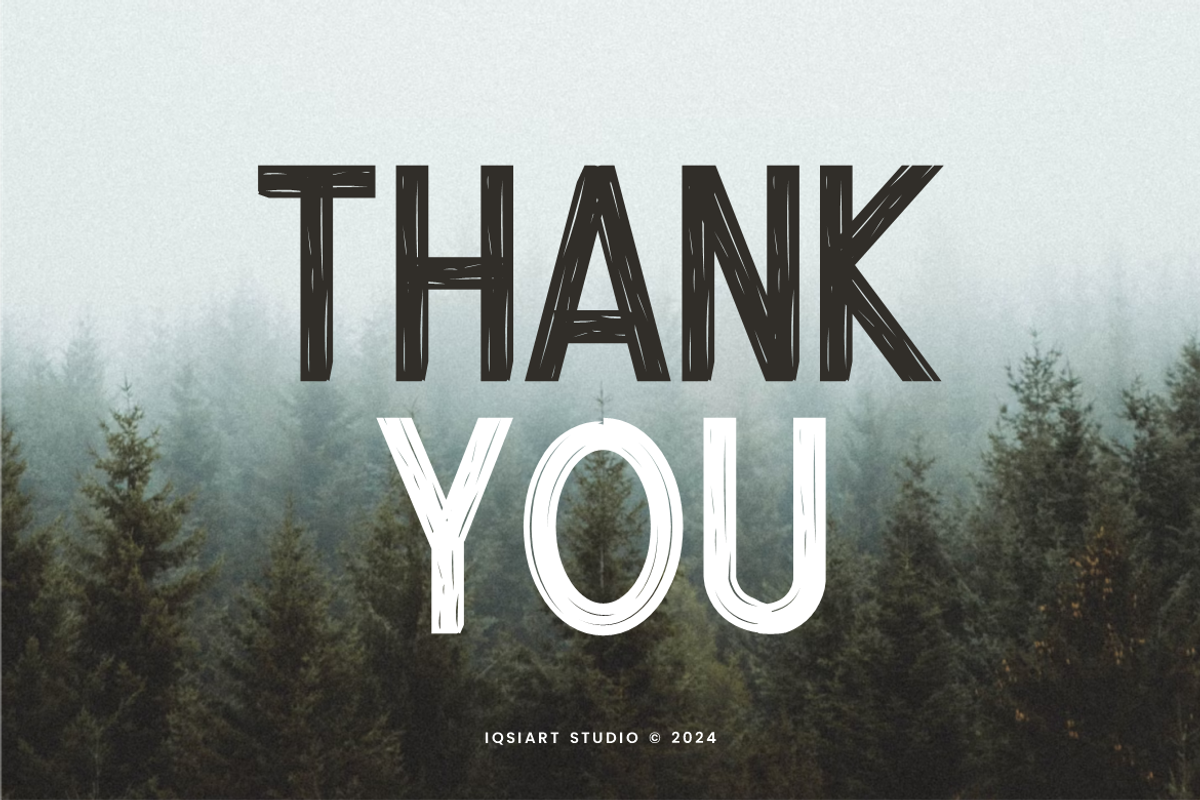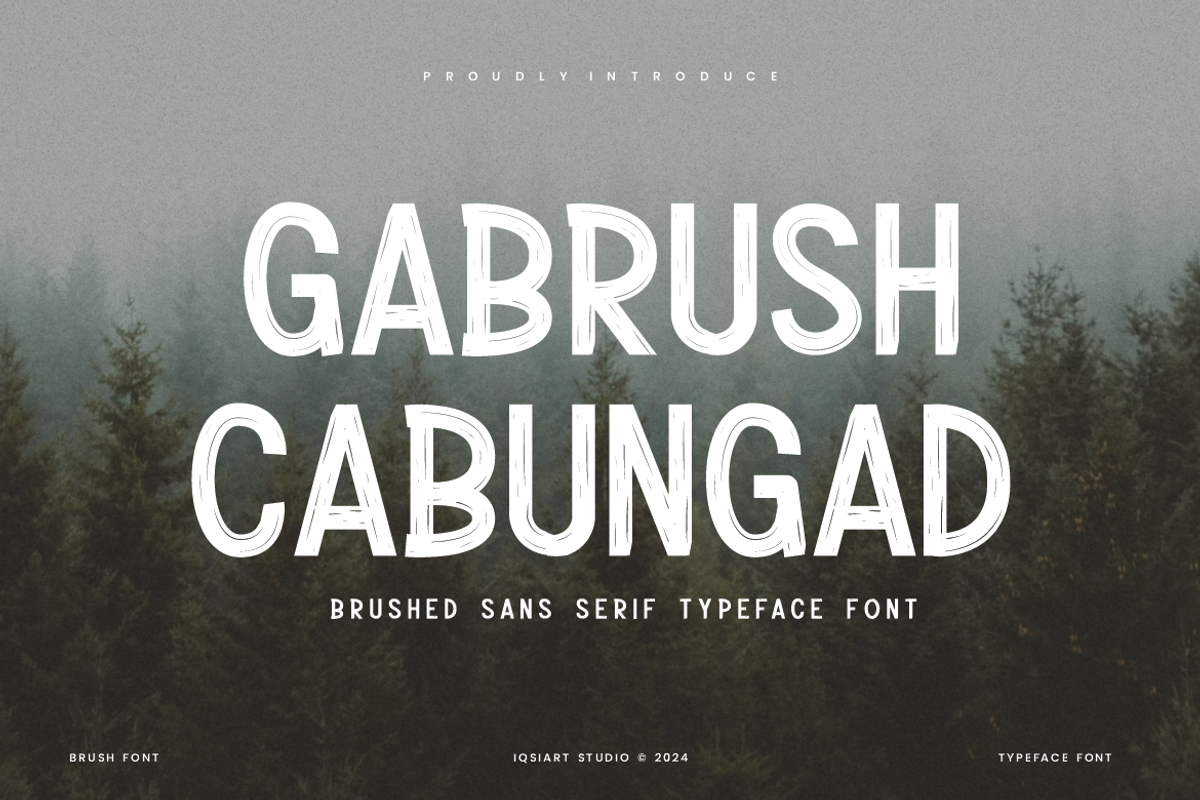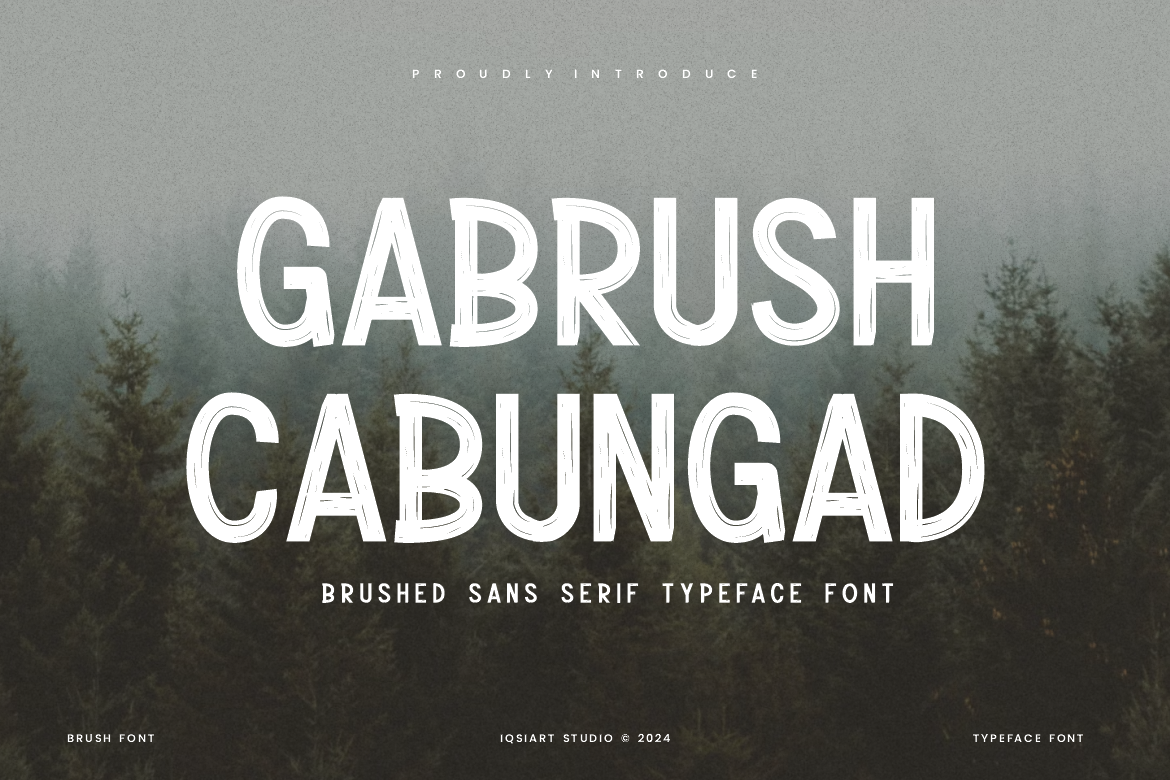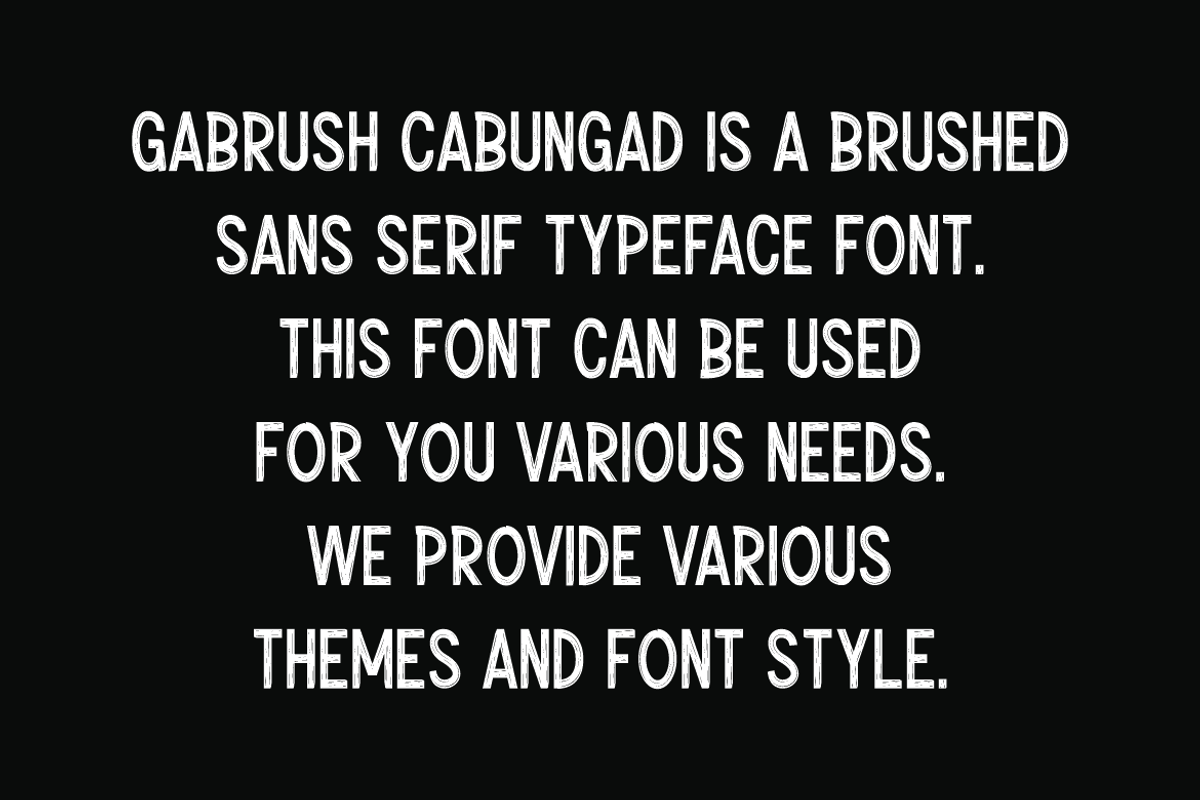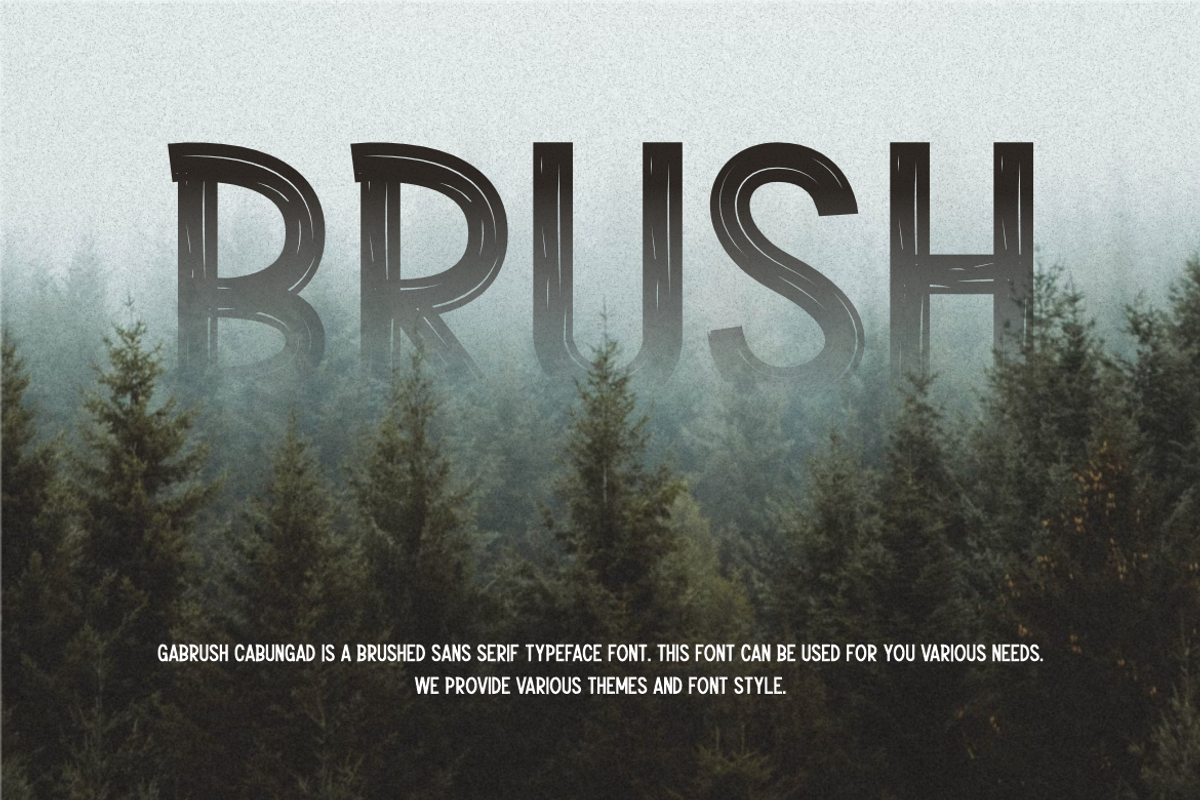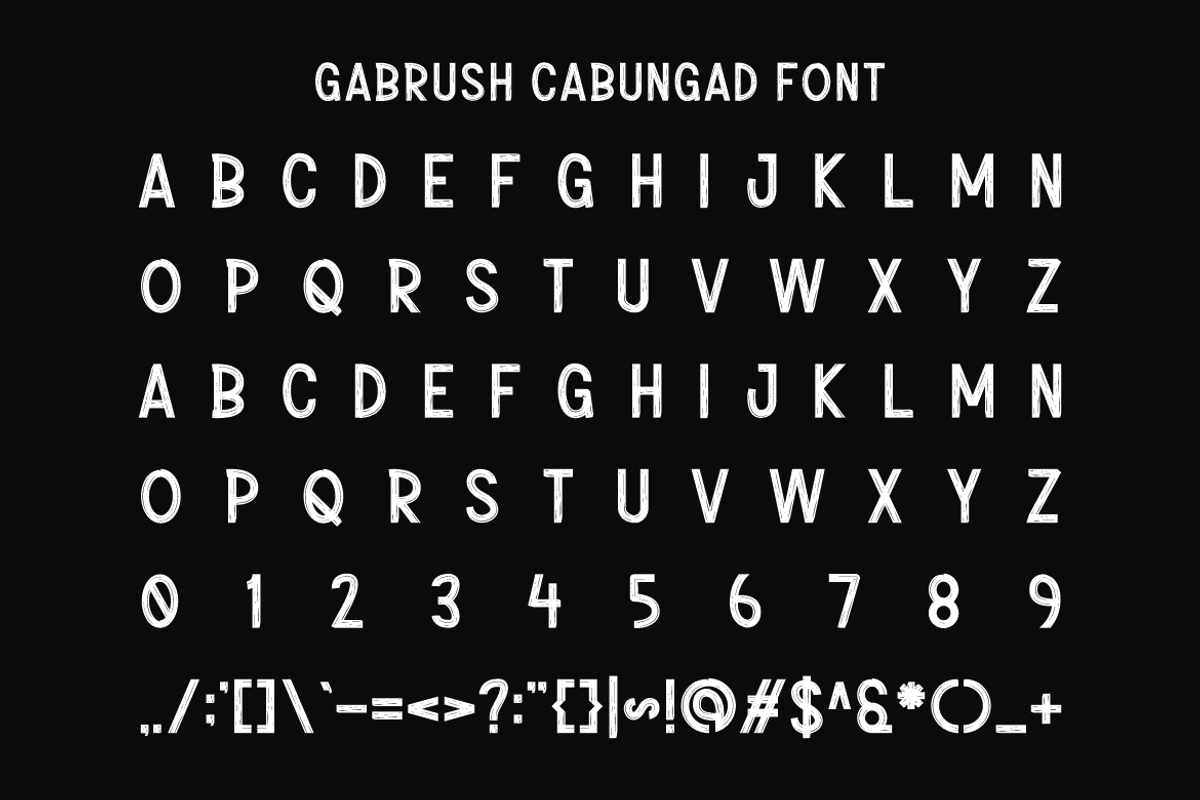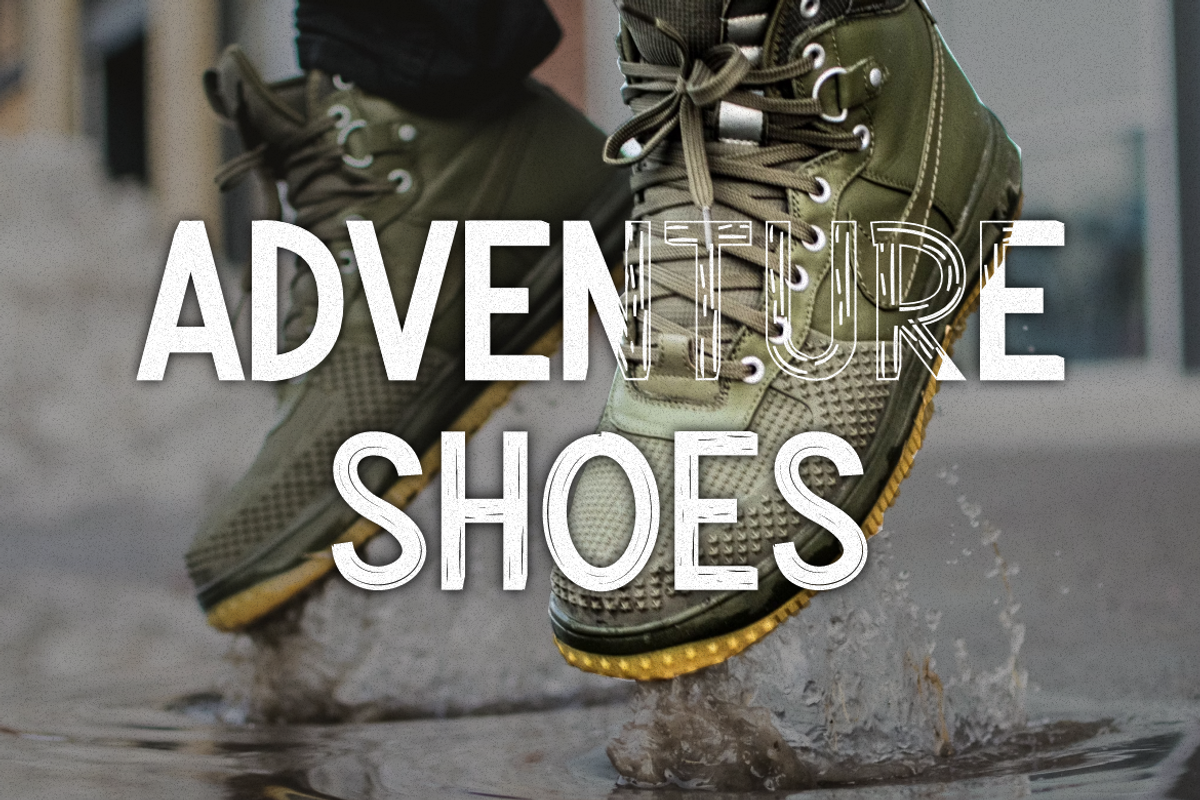
Gabrush Cabungad - Brush Font
Gabrush Cabungad Font is a best and authentic display font. This font can be used for your various needs. We provide various themes and font styles. visit our profile to get a wide variety of themes and different font styles you need.